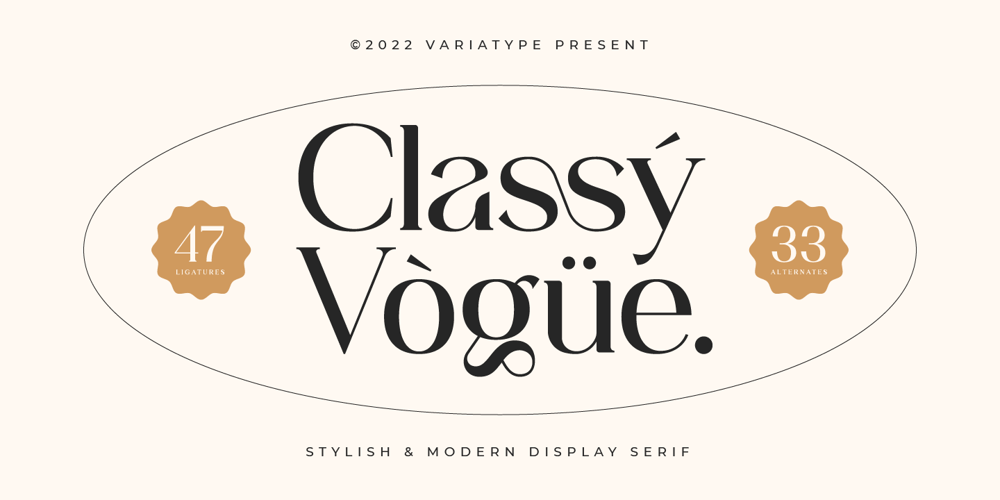
Classy Vogue
Classy Vogue font
Classy Vogue Font Family was designed by Mukhlis Muhammad and published by Variatype. Classy Vogue contains 1 styles and family package options. Classy Vogue is a stylish display serif with an elegant and luxury style that perfectly matches your branding project and more.FONT FEATURES Additional Accents 66 Languages Kerning Alternates Ligatures SOFTWARE RECOMMENDATION Adobe Photoshop Adobe Illustrator OS COMPATIBILITY Mac OS Windows